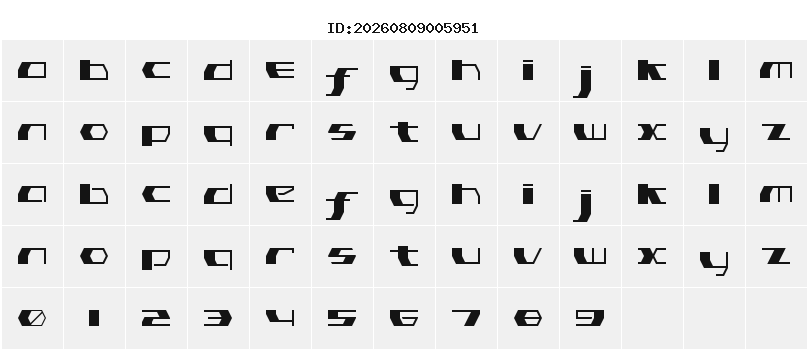
• Font Name: Pink Has Gone Extinct Thin
• Designer: Michał “Neoqueto” Nowak
• Description: ‚ÄúPink Has Gone Extinct Thin‚Äù was built with FontStruct ‚ÄúPink Has Gone Extinct Thin‚Äù is based on ‚ÄúPink Has Gone Extinct Ultra Thin‚Äù by ‚ÄúMichał “Neoqueto” Nowak‚Äù (http://fontstruct.com/fontstructors/neoqueto), which is based on ‚ÄúPink Has Gone Extinct Regular‚Äù by ‚ÄúMichał “Neoqueto” Nowak‚Äù (http://fontstruct.com/fontstructors/neoqueto)
Pink Has Gone Extinct Thin.ttf is a modern, elegant sans-serif font designed for ultimate readability and visual harmony. Perfect for branding, headlines, web design, and print materials.